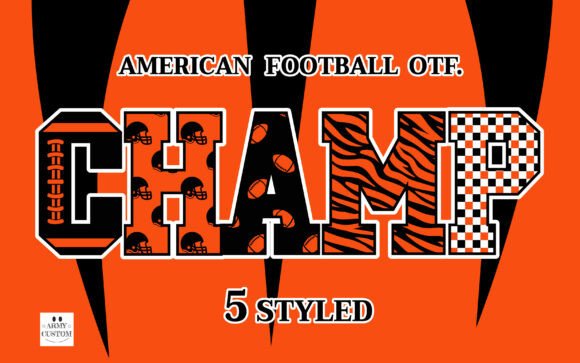
Unleash the Power of American Football 7 Tiger Font
Imagine being in the midst of a design project, pouring your heart and soul into creating something amazing, only to be held back by a lack of the perfect font. I recall a particularly frustrating experience when I was working on a sports-themed branding project. My client wanted a font that embodied the spirit of American football – bold, dynamic, and full of energy. After hours of scouring the internet, I stumbled upon the American Football 7 Tiger Font, and it was love at first sight! ✨
A Game-Changing Font
The American Football 7 Tiger Font is more than just a font – it’s an experience. This innovative color font family, with its five distinct styles, is specifically designed to capture the essence of American football. With its athletic underpinnings, it seamlessly combines design and sport, exuding dynamism and a competitive spirit that’s sure to make your designs stand out.
What I Love About American Football 7 Tiger Font
- ✅ Versatility: With five styles to choose from, you can create a cohesive brand identity or experiment with different looks.
- ✅ OpenType Features: This font supports OpenType SVG color fonts, allowing you to unlock a world of creative possibilities.
- ✅ Athletic Aesthetic: The font’s design perfectly captures the energy and dynamism of American football.
The American Football 7 Tiger Font was conceived with a unique blend of creativity and passion. Its designer drew inspiration from the beloved American pastime, aiming to create a font that would capture the hearts of designers and sports enthusiasts alike. The result is a font that’s not only visually stunning but also tells a story of strength, agility, and unyielding spirit.